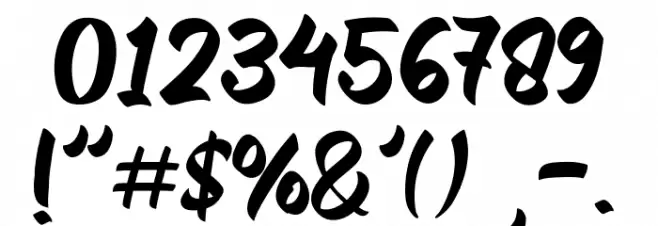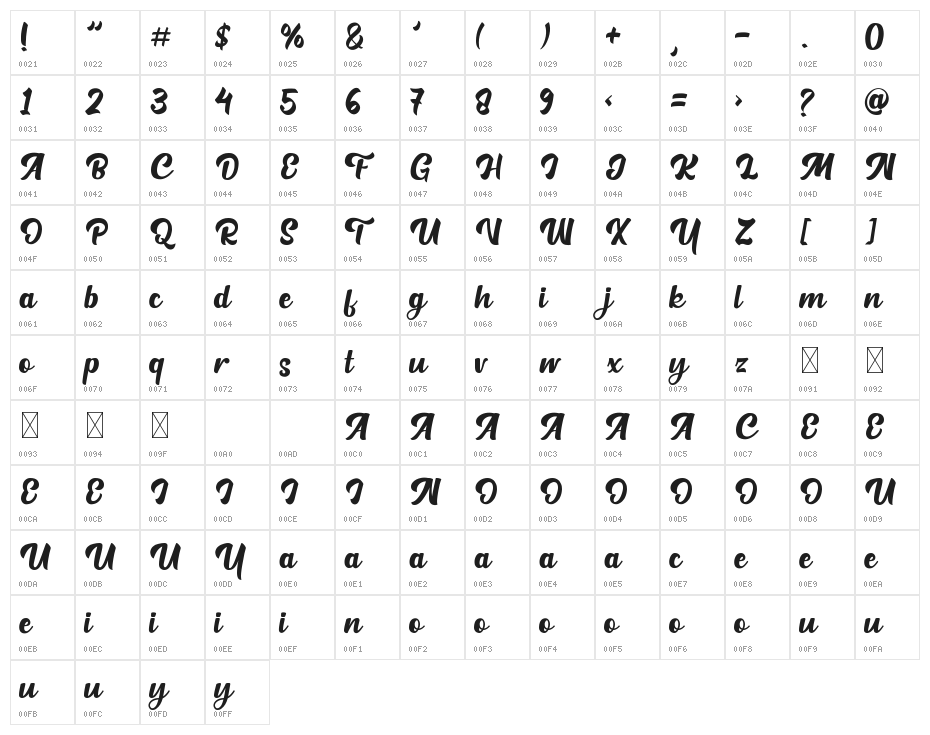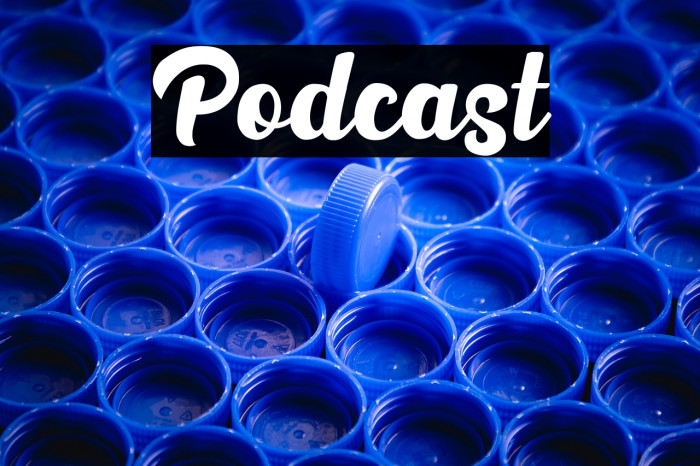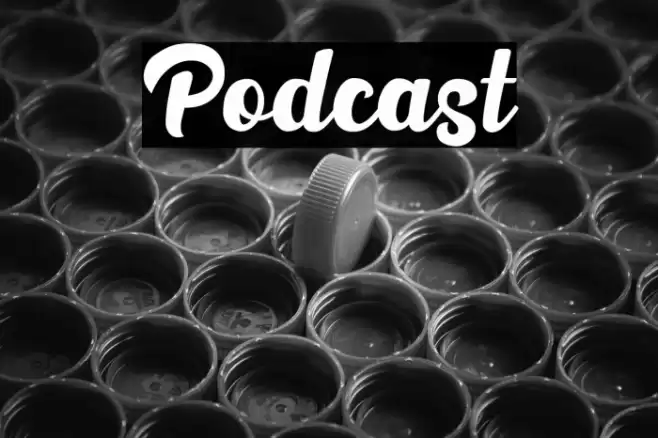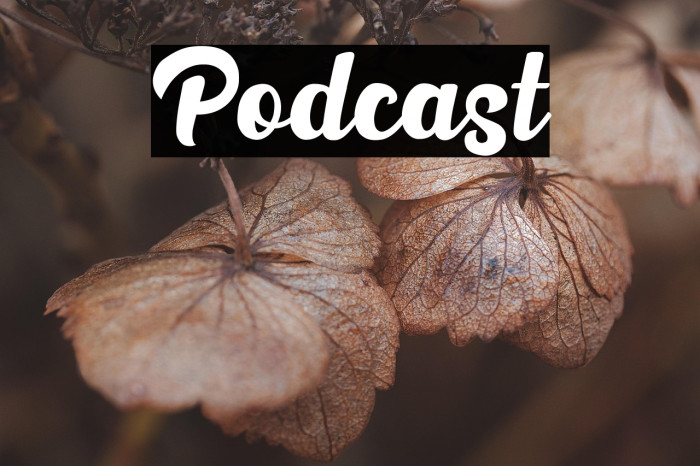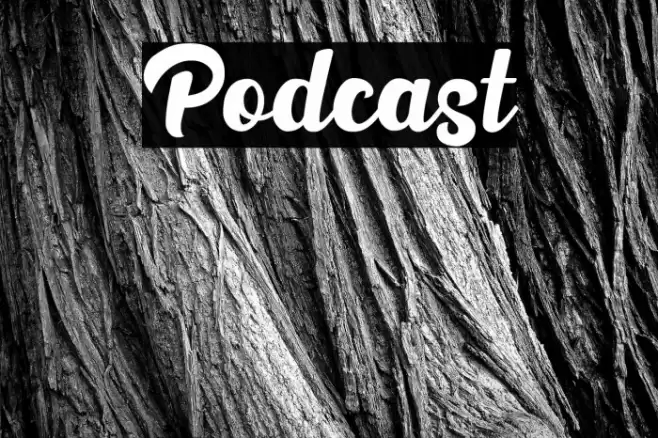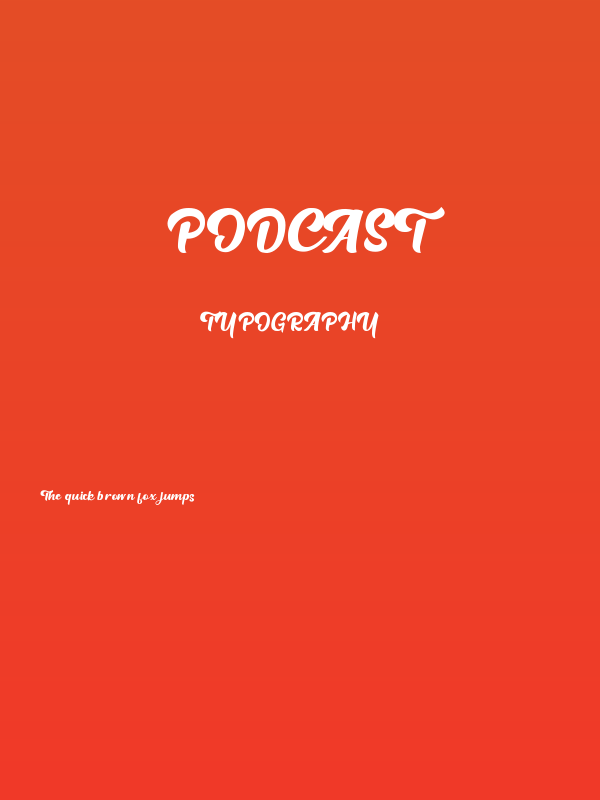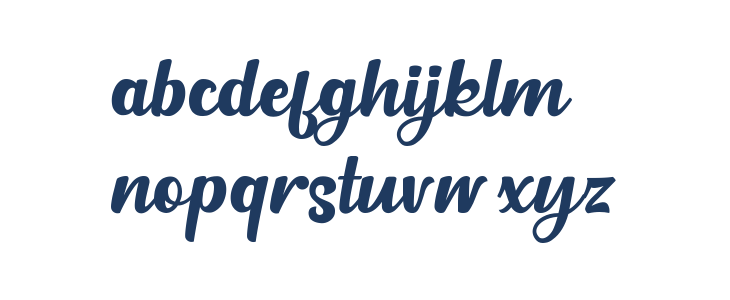
Podcast Font
Podcast Description
This font features a bold and expressive script style with a strong presence. The characters are connected in a flowing manner, reminiscent of traditional calligraphy but with a modern twist. The uppercase letters are particularly striking, with exaggerated curves and flourishes that add a sense of movement and dynamism. The lowercase letters maintain a consistent style, ensuring readability while still offering a touch of elegance. Numbers and special characters are designed to match the overall aesthetic, making them suitable for a variety of creative applications. The font's boldness and unique style make it ideal for projects that require a strong visual impact.